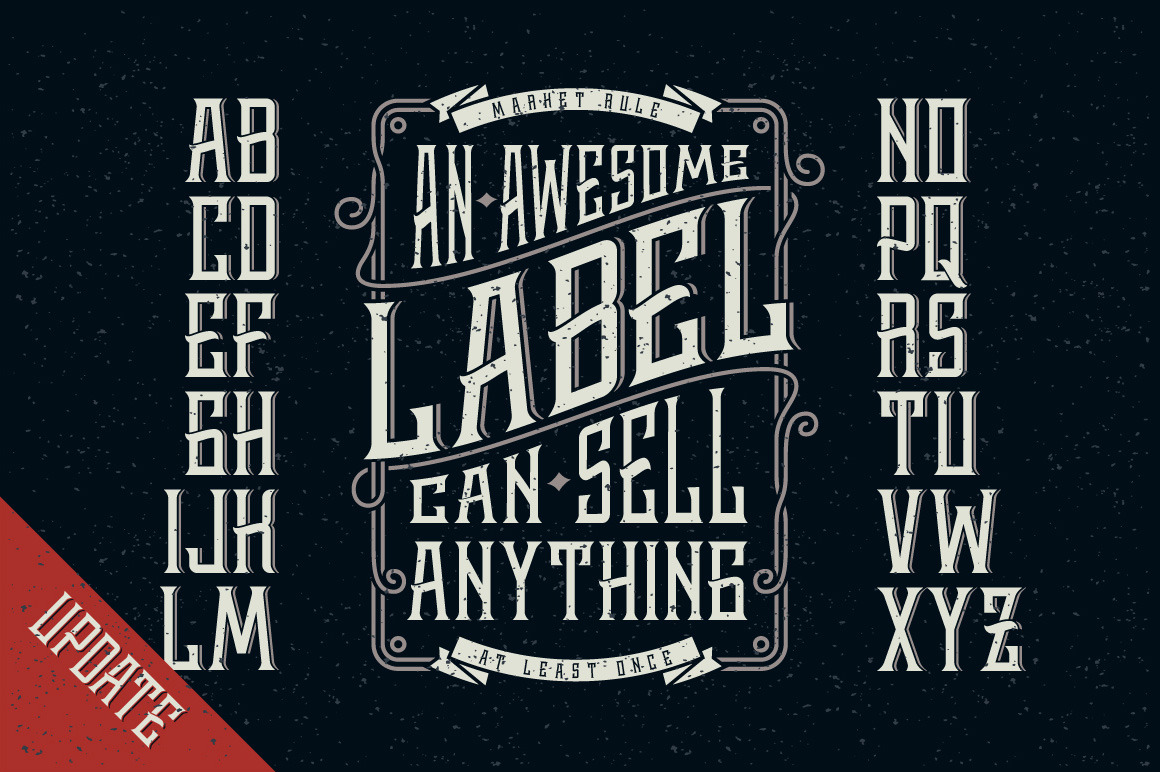
Whiskey label font + design elements
Hello everyone! This font set contains two modifications of "Whiskey font" in OTF and WOFF formats. Also there are four vector EPS10 files with illustrated examples of this font. Including decorative frames, ribbons and cardboard grungy texture. As a bonus included a hand drawn illustration of Icarus. P.S. Note, that this font includes ONLY caps letters (no digits, small letters or other symbols)
Huge update!
- Added more characters, such as numbers and basic punctuation (4th screenshot)
- New font files for separated outline shape
- Fixed few issues with kerning & letters shape